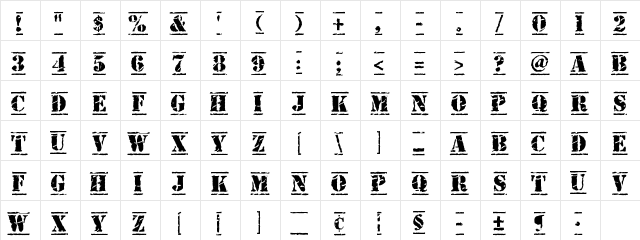
Old Stamper Regular
Design Context for Old Stamper Typeface
Old Stamper borrows the utilitarian aesthetic of stencil lettering, with its characteristic cutaways and no-frills construction lending an industrial edge.
Ideal for industrial branding, streetwear, military-adjacent aesthetics, and urban signage projects.
Pro Tip: Pair Old Stamper with raw, utilitarian design elements — exposed concrete textures, flat colour, and minimal ornamentation suit it well.